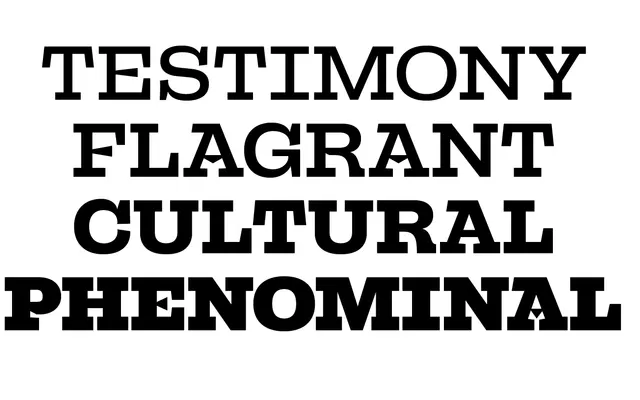
Campaign Slab
PS Type Lab · 2019
A four-weight grotesque slab developed for the 2019 TypeCon brand identity, offered as a companion to PS Type Lab's Campaign grotesk.
Originally commissioned for the SoTA TypeCon 2019 conference identity, Campaign Slab draws its structural cues from the Campaign grotesque while allowing itself room to diverge into its own voice. The family runs four weights from Regular to Black, supplemented by alternate numeral sets and variants on the more decorative uppercase characters. Further development is planned as part of the broader Campaign family project.
A slab serif family related to the Campaign grotesque, with structure drawn from grotesk conventions but given freedom to deviate; fits the grotesque slab subcategory given its close kinship with a sans-serif companion.